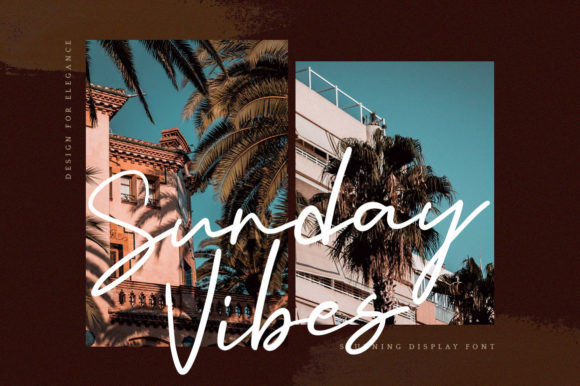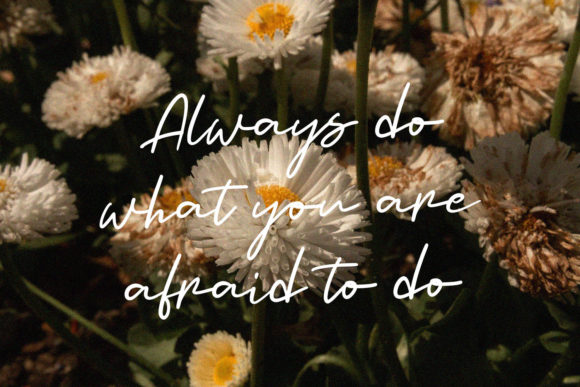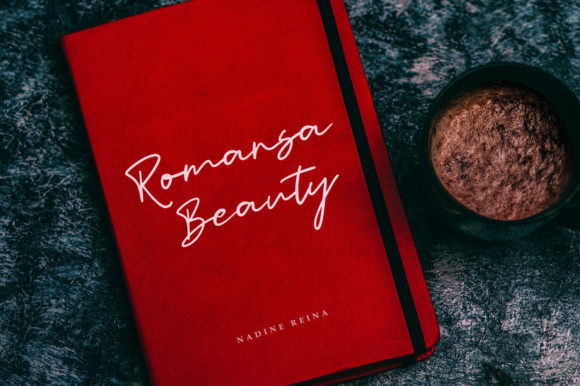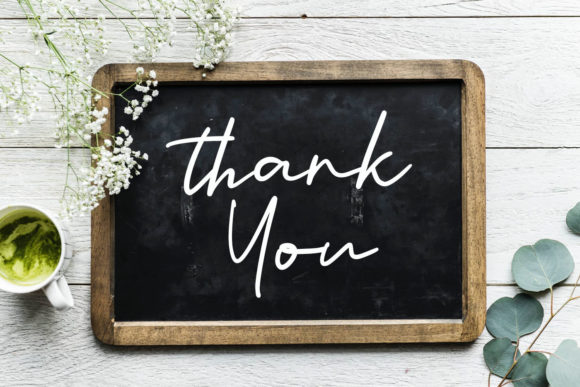
Bathine Font: The Elegant and Quirky Script Font for Your Creative Projects
Are you looking for a font that can add a touch of elegance and quirkiness to your creative projects? Look no further than the Bathine font. This beautiful script font is perfect for designers and crafters who want to create stunning wedding invitations, stationery art, social media posts, and more. In this article, we’ll take a closer look at the Bathine font, its features, and how you can use it to elevate your designs.
What is Bathine Font?
Bathine is an elegant and quirky script font that is sure to capture your heart with its cute and joyful style. Its unique and playful design makes it perfect for a wide range of creative projects, from wedding invitations and stationery art to social media posts and marketing materials. Whether you’re a designer, crafter, or DIY enthusiast, Bathine font is a great addition to your font collection.
Features of Bathine Font
The Bathine font has several features that make it stand out from other script fonts. Some of its key features include:
- Elegant and Quirky Design: Bathine font has a unique and playful design that is both elegant and quirky. Its flowing lines and curves make it perfect for creating beautiful and eye-catching designs.
- Cute and Joyful Style: The Bathine font has a cute and joyful style that is sure to bring a smile to your face. Its playful design makes it perfect for creating designs that are fun and lighthearted.
- High-Quality Letters: The Bathine font features high-quality letters that are crisp and clear. This makes it perfect for use in both digital and print designs.
- Multilingual Support: The Bathine font supports multiple languages, making it perfect for use in designs that require non-English text.
Uses of Bathine Font
The Bathine font is a versatile font that can be used in a wide range of creative projects. Some of the most popular uses of the Bathine font include:
- Wedding Invitations: The Bathine font is perfect for creating beautiful and elegant wedding invitations. Its flowing lines and curves make it perfect for creating designs that are both romantic and sophisticated.
- Stationery Art: The Bathine font is also great for creating beautiful stationery art, including greeting cards, thank you cards, and more.
- Social Media Posts: The Bathine font is perfect for creating eye-catching social media posts that are sure to grab the attention of your followers.
- Marketing Materials: The Bathine font can also be used in marketing materials, including brochures, flyers, and more.
Tips for Using Bathine Font
Here are a few tips for using the Bathine font in your designs:
- Use it with a Simple Background: The Bathine font is a decorative font, so it’s best to use it with a simple background that won’t compete with the font.
- Experiment with Different Colors: The Bathine font looks great in a variety of colors, so don’t be afraid to experiment with different colors to find the one that works best for your design.
- Pair it with Other Fonts: The Bathine font can be paired with other fonts to create a unique and interesting design. Try pairing it with a simple sans-serif font for a beautiful contrast.
The Bathine font is a beautiful and versatile script font that is perfect for designers and crafters who want to create stunning designs. Its elegant and quirky design makes it perfect for a wide range of creative projects, from wedding invitations and stationery art to social media posts and marketing materials. With its high-quality letters, multilingual support, and cute and joyful style, the Bathine font is a great addition to any font collection.